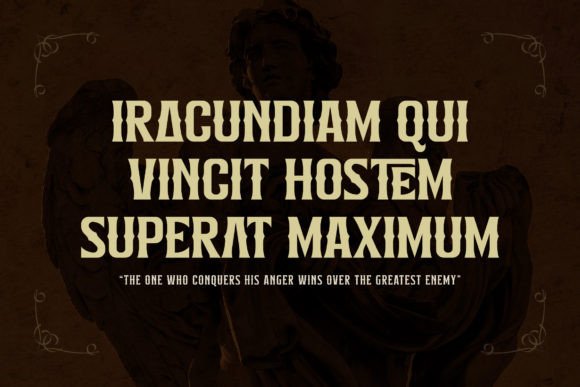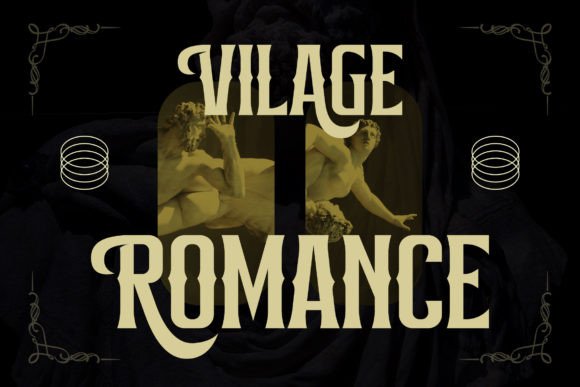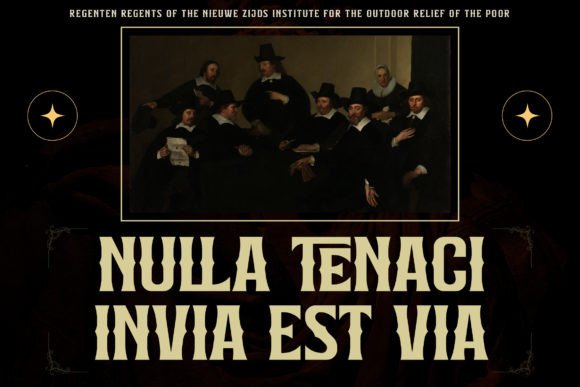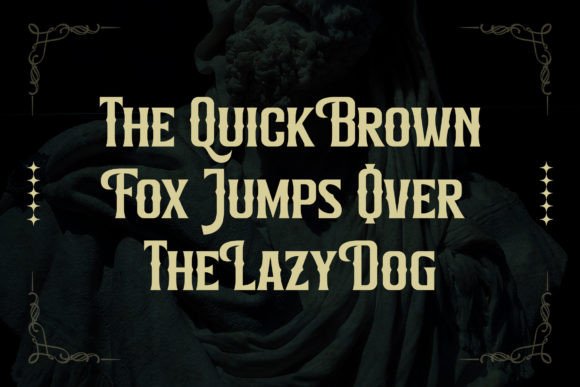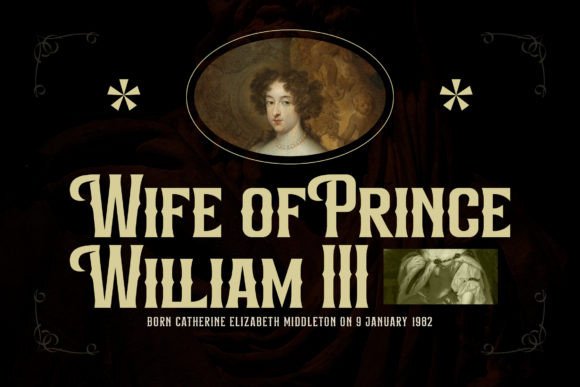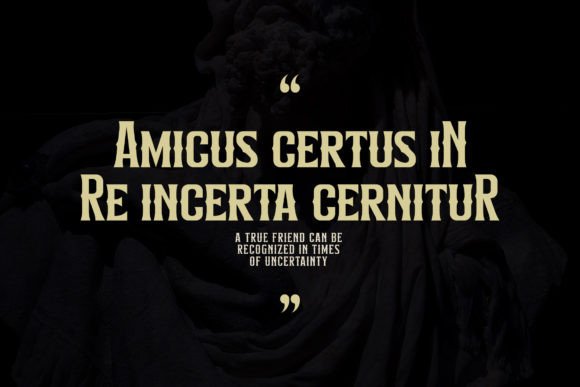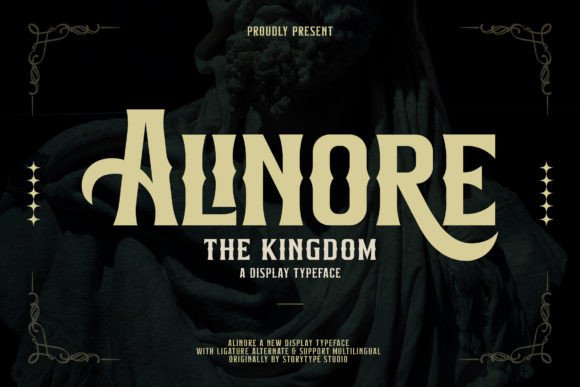
The Alinore Font: A Timeless Choice for Elegant Designs
I’ll never forget the struggle I faced while working on a luxury brand’s logo design project. The client wanted a font that exuded elegance, sophistication, and a touch of classic charm. After hours of scouring through font libraries, I stumbled upon Alinore – a modern and classic serif font that instantly caught my attention. In this article, I’ll share my experience with Alinore, its features, and how to make the most of this beautiful typeface.
What Makes Alinore Special?
Alinore is a unique and solemn serif font, perfect for creating elegant and luxurious designs. Its classic look makes it an excellent choice for various applications, including:
- Logo design for high-end brands
- Book or movie title design
- Fashion brand typography
- Magazine and newspaper layouts
- Clothing and apparel design
- Lettering and quote designs
What I Love About Alinore ✨
- ✅ PUA Encoding: Alinore is PUA encoded, making it easy to access all glyphs and swashes.
- ✅ Unique and Classic Look: The font’s solemn and elegant design makes it perfect for luxury brands and high-end designs.
- ✅ Versatile: Alinore can be used for various design projects, from logos to magazine layouts.
- ⚠️ Learning Curve: While Alinore is easy to use, mastering its OpenType features and glyphs may take some time.
The Story Behind Alinore
Alinore was designed with the intention of creating a timeless and elegant serif font. While the actual designer’s story might be unknown, it’s clear that Alinore’s creator aimed to craft a typeface that would exude luxury, sophistication, and classic charm. Whether used for logos, book titles, or fashion brands, Alinore’s unique and solemn look makes it an excellent choice for designers seeking a high-end aesthetic.
Q: What is PUA encoding, and how does it benefit Alinore?
PUA (Private Use Area) encoding allows font creators to include additional characters, glyphs, and swashes within the font file. In Alinore’s case, PUA encoding makes it easy to access and use the font’s various features, making it a more versatile and user-friendly typeface.
Q: Is Alinore suitable for body text?
While Alinore is an elegant and classic serif font, it may not be the best choice for body text due to its sophisticated and refined design. However, it can be used for shorter paragraphs or captions.